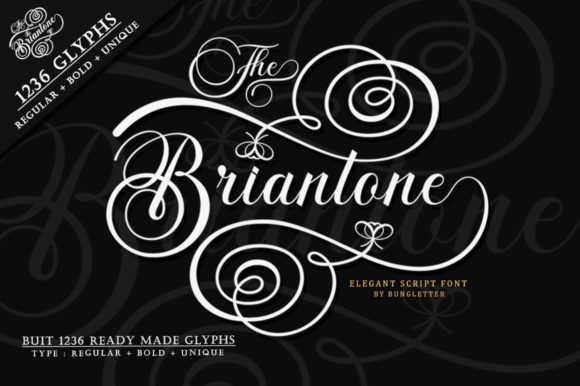
Introducing The Briantone Font, a script font that will add a touch of elegance and timelessness to your designs. Created by bungreja123, this font is the perfect choice for those looking to create captivating logos, branding, and quotes.
With its unique and beautiful touch, The Briantone Font breathes life into every letter, making your designs come alive. Whether you're designing a wedding welcome sign, a stunning logo, or a memorable quote, this font will ensure that your creations stand out from the crowd.
What sets The Briantone Font apart is its PUA encoding. This means that accessing all of the glyphs and swashes is a breeze, allowing you to effortlessly incorporate intricate details and flourishes into your designs. The possibilities are endless, and your creativity knows no bounds with this font.
Captivate your audience and evoke emotions with the enchanting curves and strokes of The Briantone Font. Its timeless appeal will leave a lasting impression, whether you're designing for a romantic wedding, a sophisticated brand, or an inspirational quote.
Get ready to elevate your designs and leave a lasting impact with The Briantone Font. Its versatility and charm make it the perfect choice for any project that requires a touch of elegance and sophistication. Stand out from the crowd and let your designs speak volumes with this captivating font.